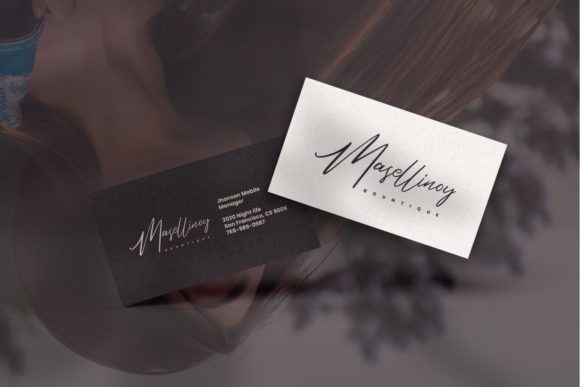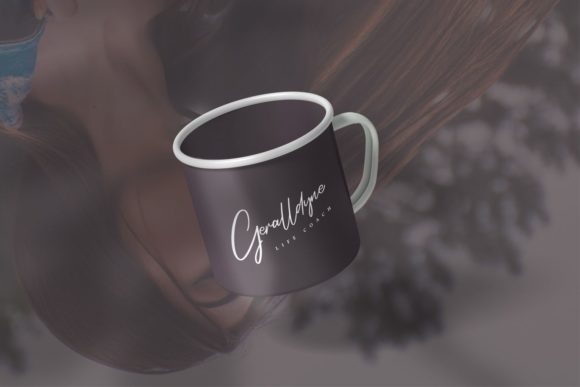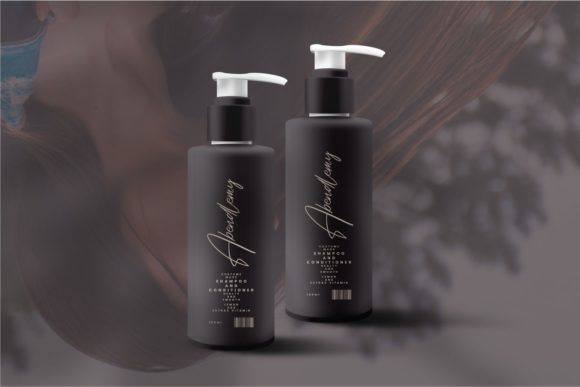
Introduction to Malactlicos Font
You’ve spent hours pouring over your creative project, pouring your heart and soul into every detail, from the color palette to the typography. And then, it happens – that one font that brings everything together. For many designers, that perfect font is the Malactlicos Font, a stylish and delicate script font that adds a touch of elegance to any design.
With its clean, thin, and smooth vibe, the Malactlicos Font is the perfect addition to any project, whether it’s a logo, a brochure, or a social media graphic. And the best part? It’s a free download, available for designers to use as a high-quality design resource. Plus, its transparent background makes it easy to layer and combine with other design elements.
For designers, the Malactlicos Font is a valuable asset that can elevate any design from good to great. Its versatility and sophistication make it a must-have for any creative project, and its free availability means that designers can access it without breaking the bank.
Key Features of Malactlicos Font
- High-quality, unique font design perfect for creative projects requiring a touch of elegance.
- Transparent background, allowing for seamless integration into digital designs and creative projects.
- High-resolution font files, available in sizes ranging from 20 to 200 points, ensuring crisp and clear text display.
- Designed with a focus on versatility, making it suitable for a wide range of creative applications, from logos to typography.
Honest Review: Malactlicos Font
As a designer, I’m always on the lookout for high-quality design resources that can elevate my creative projects. Recently, I stumbled upon the Malactlicos Font, and I’m excited to share my honest review with you.
What works well: ✨ The Malactlicos Font is incredibly versatile, making it perfect for a wide range of creative projects. Its unique blend of modern and vintage elements adds a touch of sophistication to any design. I also appreciate the transparent background option, which allows for seamless integration with any background image or color.
- High quality: The font’s high quality is evident in its crisp lines and well-defined characters.
Any limitations: ⚠️ While the Malactlicos Font is generally easy to use, I did encounter some issues with font rendering on certain devices. This may be a minor issue for some users, but it’s worth noting.
Overall impression: The Malactlicos Font is a fantastic design resource that’s sure to impress. Its versatility, high quality, and transparent background make it an excellent choice for any creative project. With its free download option, it’s an absolute must-have for any designer’s toolkit.
Tips for Getting the Most Out of Malactlicos Font
Malactlicos Font is a versatile design resource that can be used for a variety of creative projects. To get the most out of it, use it with a transparent background to create a clean and modern look. You can also pair it with other high-quality design elements to create a unique and eye-catching design.
Malactlicos Font is commonly used for creating logos, branding materials, and marketing materials. It’s also a great resource for designers who want to create high-quality designs with a free download. With its high-quality design and transparent background, Malactlicos Font is a great addition to any design project.